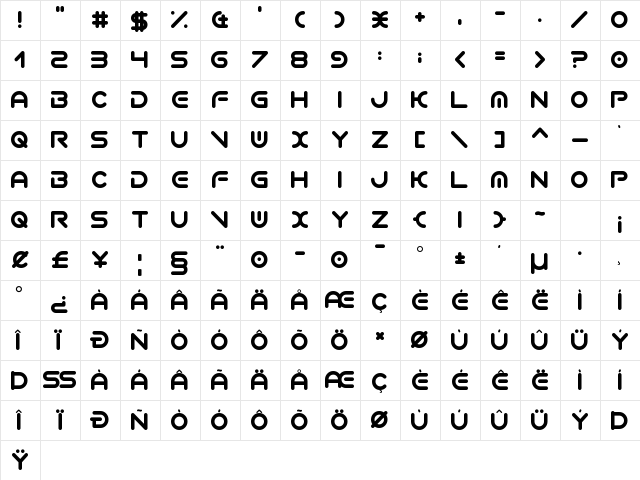
Vermin Vibes 2 EDM XTC Regular
| Designer | Andrew McCluskey |
Design Context for Vermin Vibes 2 EDM XTC Typeface
Vermin Vibes 2 EDM XTC offers clean, dependable letterforms without strong stylistic allegiance, making it a practical choice for designers who need flexibility.
Pro Tip: Use Vermin Vibes 2 EDM XTC in both headline and body roles to test its range before committing to a single application.